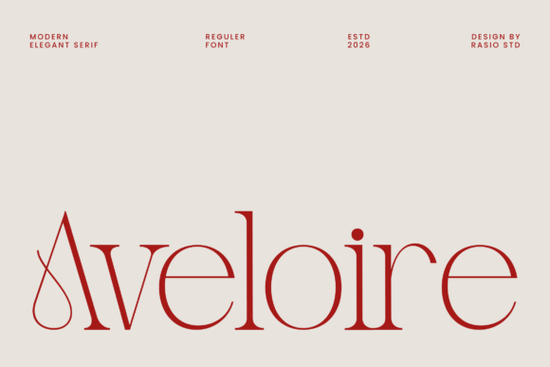
If you're looking for a font that combines elegance with modern sophistication, Aveloire Font is an excellent choice. This serif font is designed with refined proportions and graceful stroke contrast, making it perfect for projects that require a touch of class and refinement.
Understanding the Design of Aveloire Font
Aveloire Font is a modern elegant serif font that blends classic serif foundations with delicate curves and stylish terminals. The result is a sophisticated and contemporary typographic personality. Whether you're working on editorial layouts, luxury branding, or fashion publications, Aveloire can add a polished and refined look to your designs.
Why Choose Aveloire for Your Projects?
Aveloire is not just another serif font; it's a carefully crafted typeface that offers a unique blend of traditional and modern elements. Here are some reasons why you might want to consider using Aveloire for your next project:
- Elegance and Sophistication: The refined proportions and graceful stroke contrast make Aveloire a perfect fit for high-end and luxury projects.
- Versatility: Whether you're designing magazine headlines, premium marketing visuals, or any other project that requires a polished look, Aveloire can handle it all.
- Modern yet Classic: The combination of classic serif foundations and modern design elements gives Aveloire a timeless appeal.
Using Aveloire in Different Creative Projects
Aveloire Font is versatile enough to be used in a variety of creative projects. Here are some specific use cases where Aveloire can shine:
- Editorial Layouts: The refined and elegant nature of Aveloire makes it ideal for magazine and book layouts, where a sophisticated look is essential.
- Luxury Branding: For high-end brands, Aveloire can add a touch of elegance and sophistication to logos, business cards, and other branding materials.
- Fashion Publications: In the world of fashion, where style and elegance are paramount, Aveloire can help create visually stunning headlines and body text.
- Premium Marketing Visuals: Whether you're creating brochures, posters, or digital ads, Aveloire can help you achieve a polished and professional look.
Comparing Aveloire with Other Serif Fonts
While Aveloire stands out with its unique blend of elegance and modernity, it's worth comparing it with other popular serif fonts to see how it fits into your design toolkit. Here are a few other serif fonts you might consider:
- Zacorsea offers a more traditional serif look with a touch of modernity, making it a great alternative if you prefer a slightly more classic feel.
- Stanza is another elegant serif font that combines simplicity with sophistication, suitable for a wide range of design projects.
- The Aesthetic Elegant Bundle provides a collection of fonts that complement each other, offering a variety of styles for different design needs.
- Biges is a bold and stylish serif font that can add a strong and impactful presence to your designs.
Tips for Using Aveloire Effectively
To get the most out of Aveloire, here are some practical tips:
- Pair with Complementary Fonts: Use Aveloire with simpler sans-serif fonts for a balanced and harmonious design. For example, pairing it with a clean and minimalistic font like Stanza can create a beautiful contrast.
- Use for Key Elements: Apply Aveloire to key elements like headlines, titles, and important text to draw attention and add a touch of elegance.
- Experiment with Sizes and Weights: Play around with different sizes and weights to find the best fit for your project. Aveloire works well in both large and small sizes, making it versatile for various design needs.
Final Thoughts
Aveloire Font is a fantastic choice for designers, crafters, print-on-demand sellers, small businesses, and creative hobbyists who want to add a touch of elegance and sophistication to their projects. Its refined proportions and graceful stroke contrast make it stand out, and its versatility allows it to be used in a wide range of creative applications. Give Aveloire a try and see how it can enhance your designs.